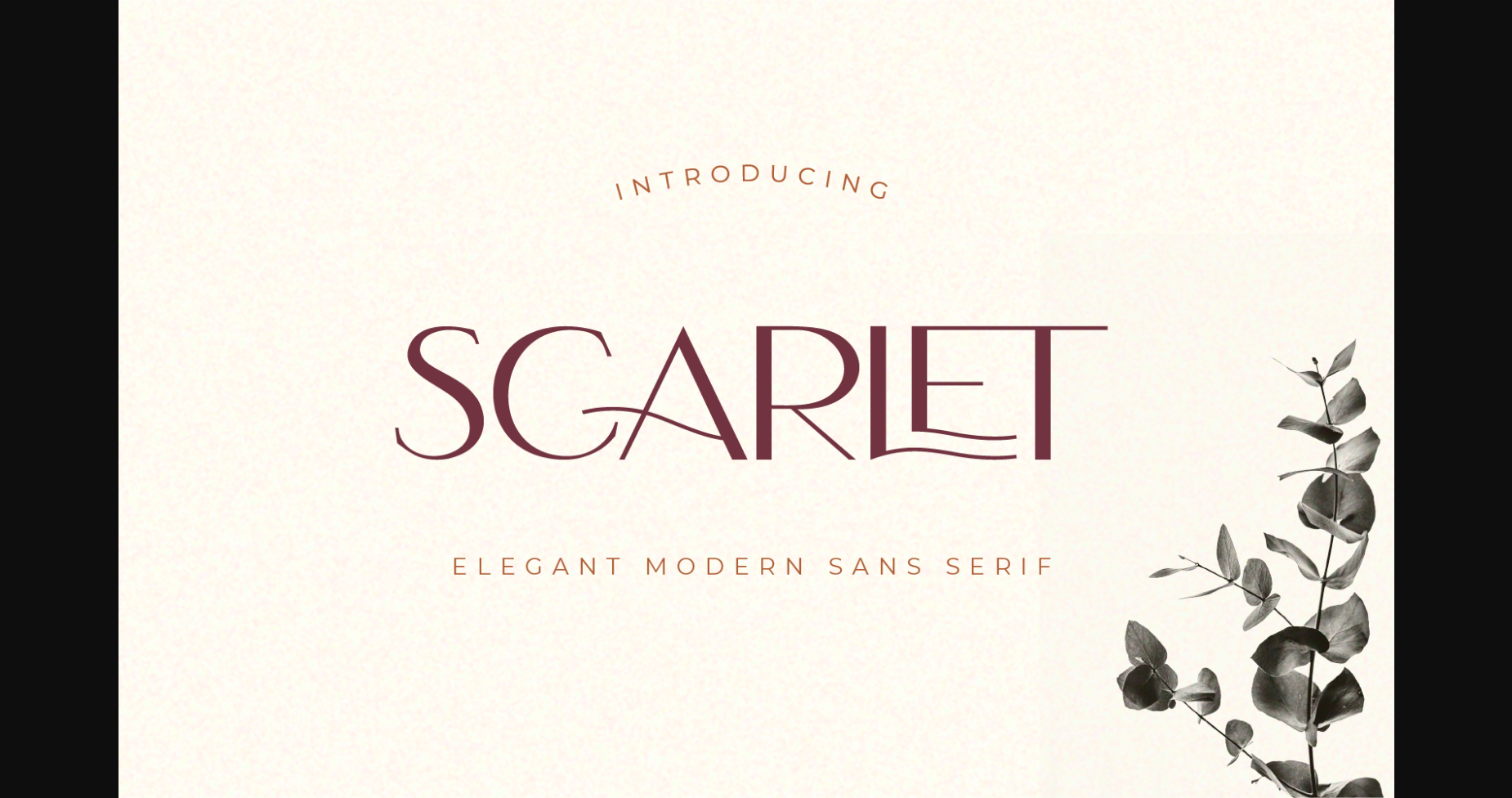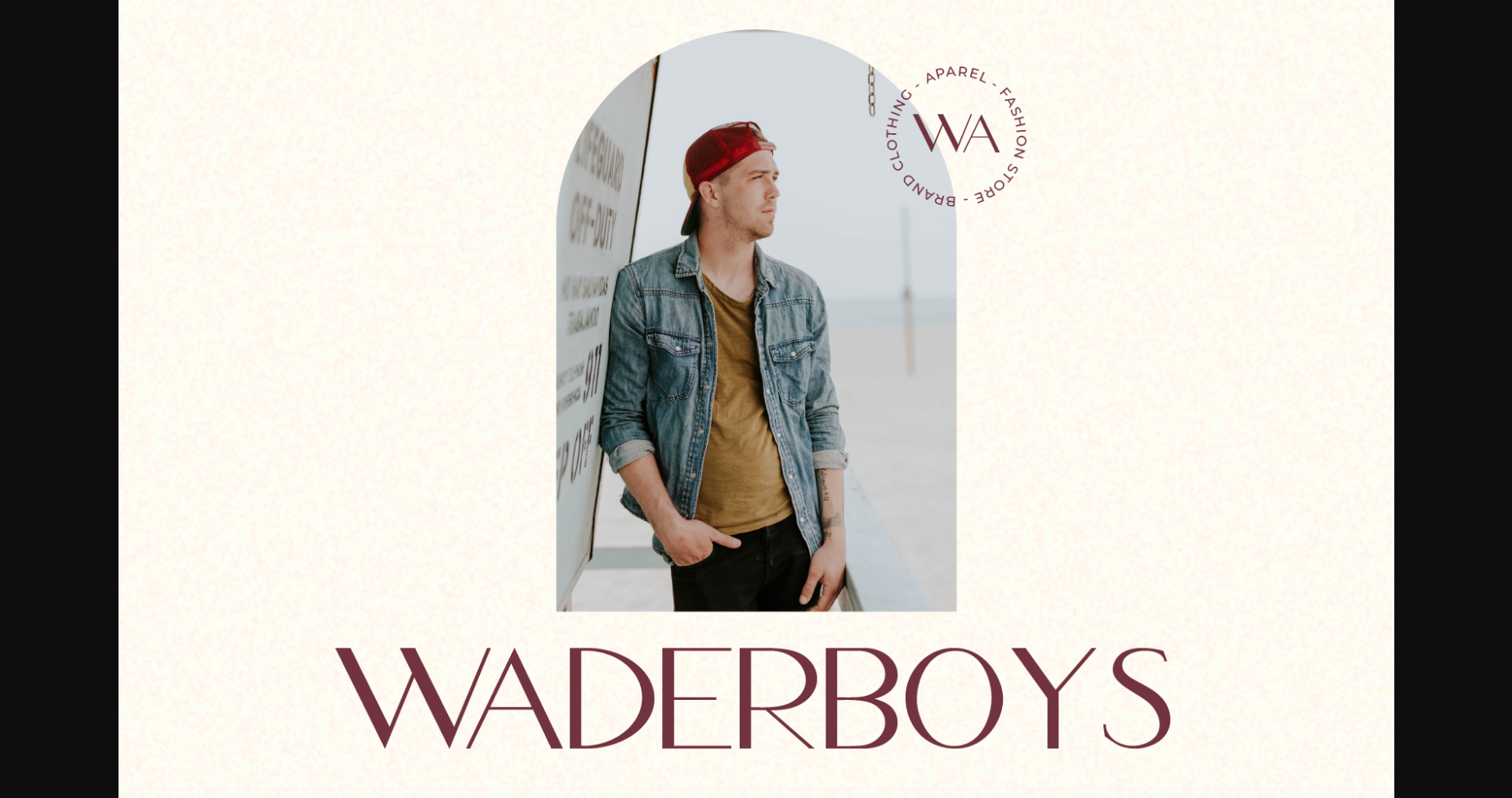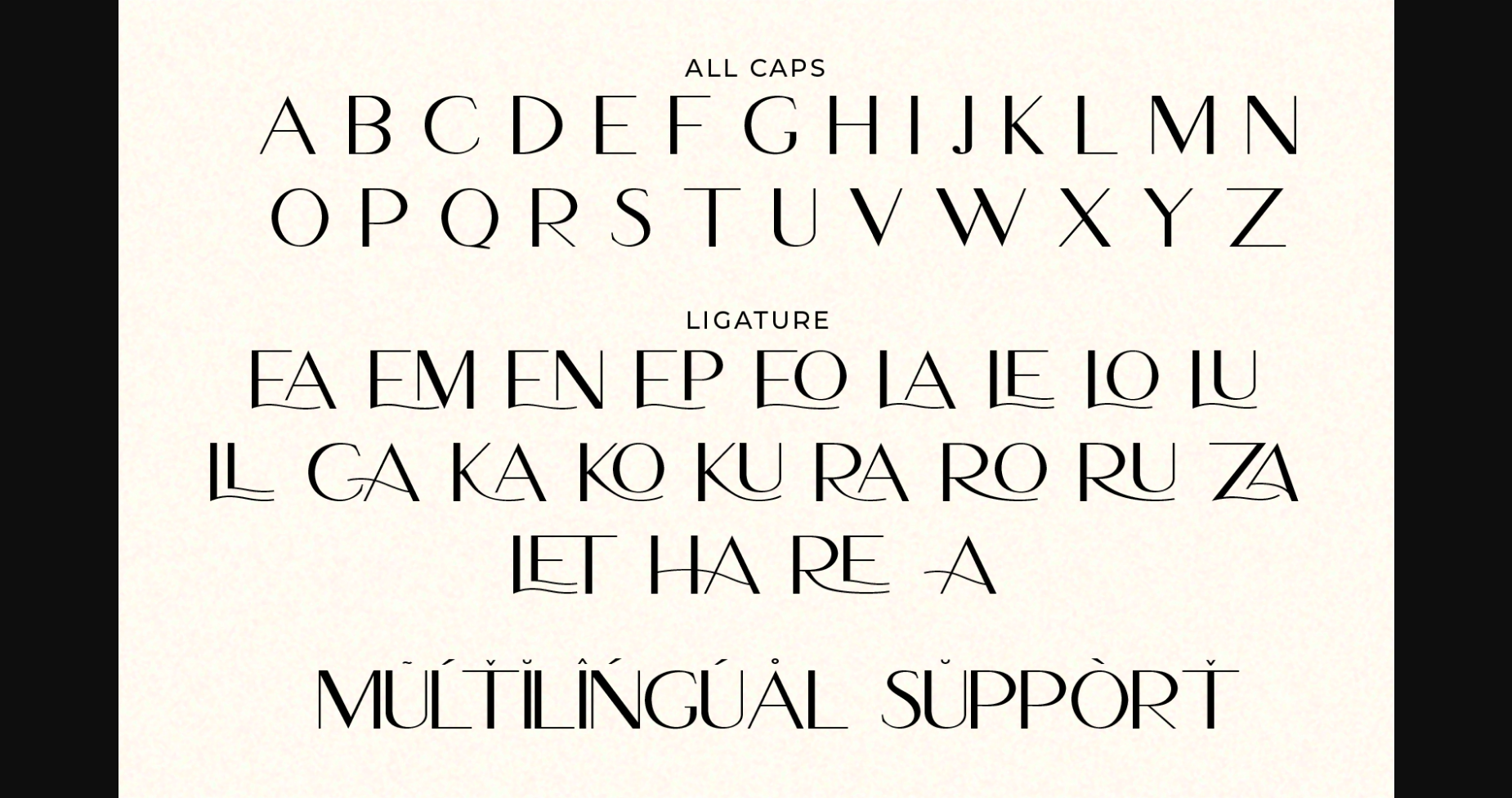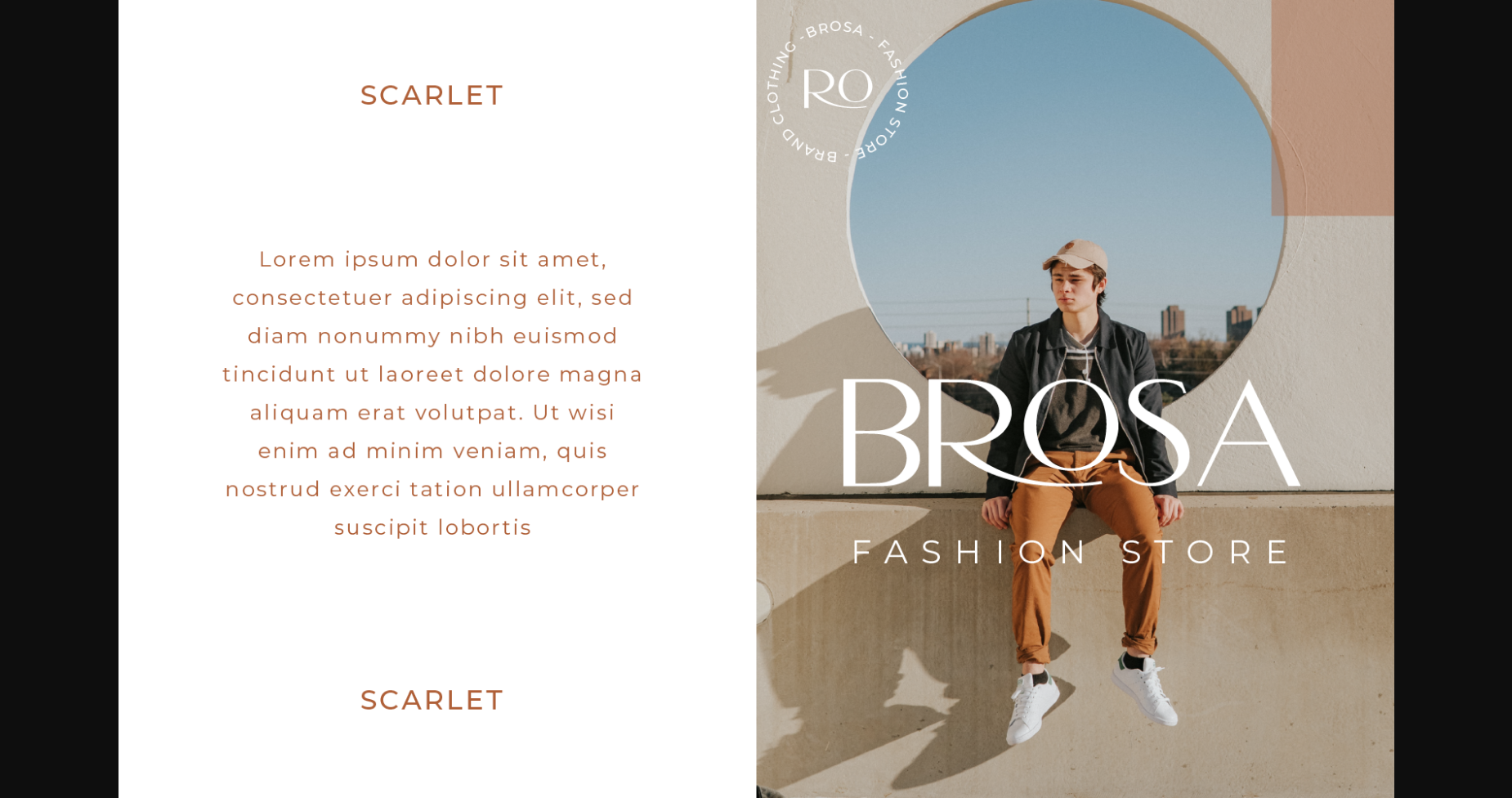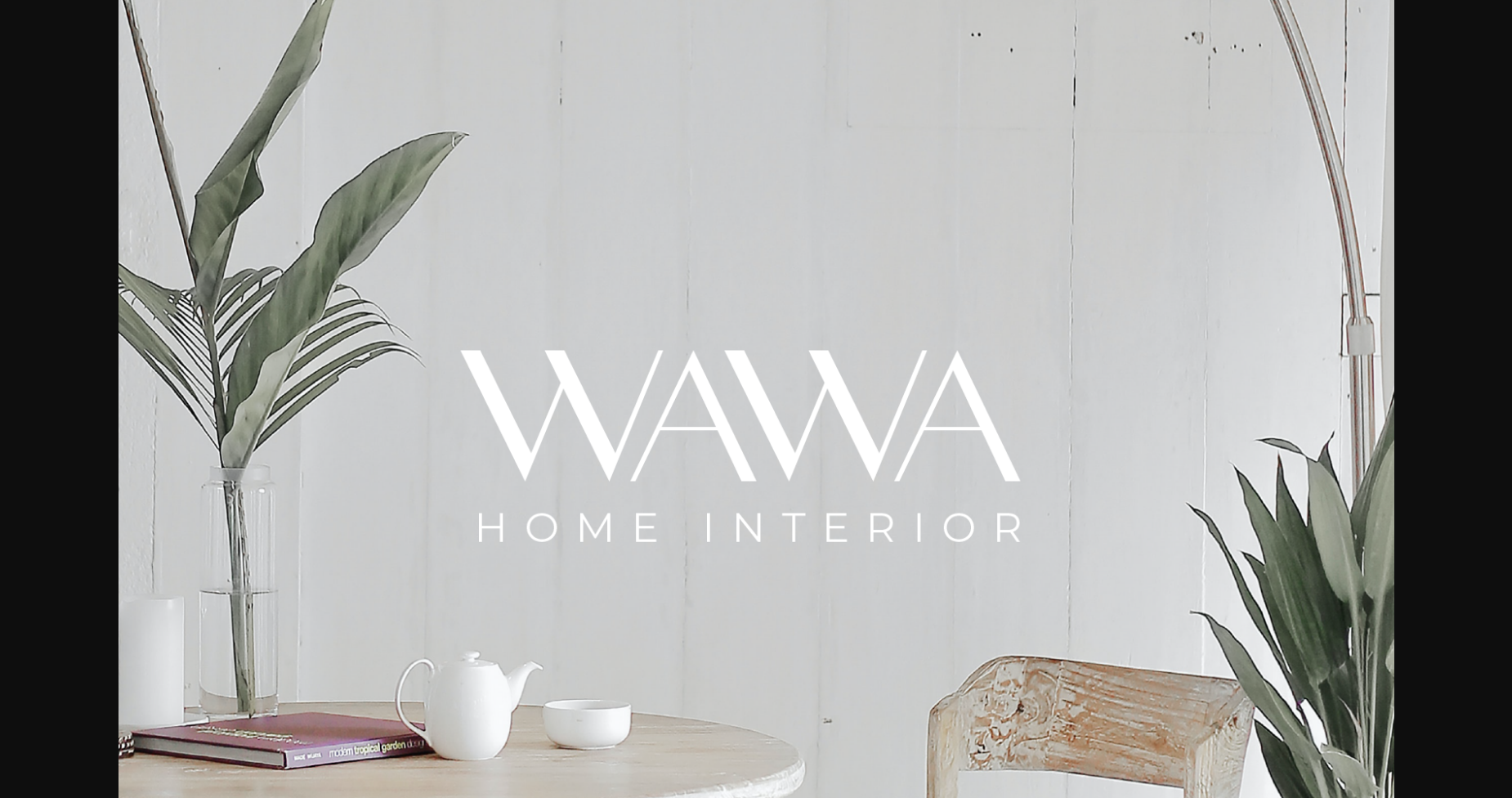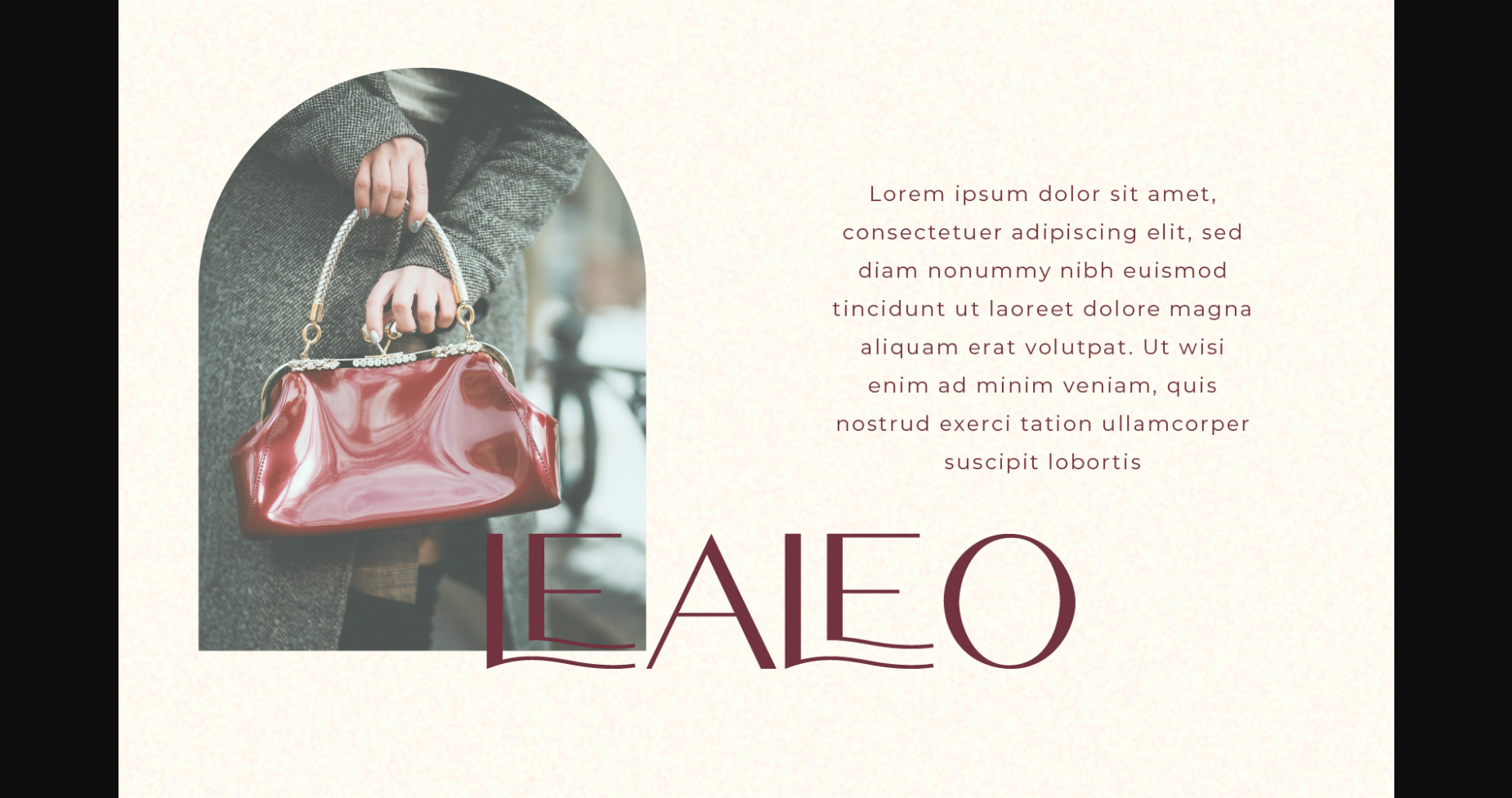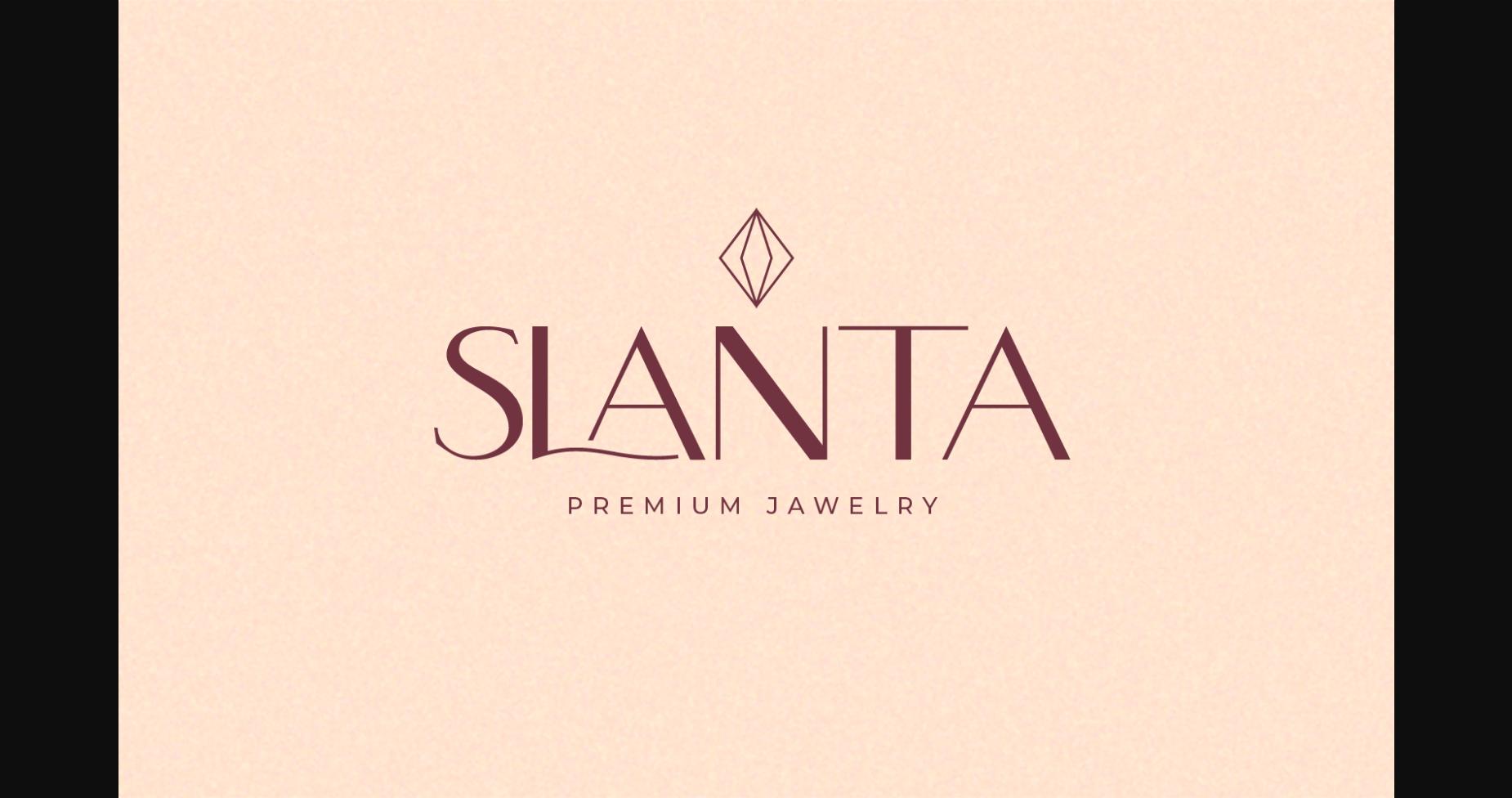
Scarlet Font
About Scarlet Font
Scarlet is an elegant and modern sans serif font. It features a classy look that can be used for logos, branding, invitations, stationery, wedding designs, social media posts, and much more!